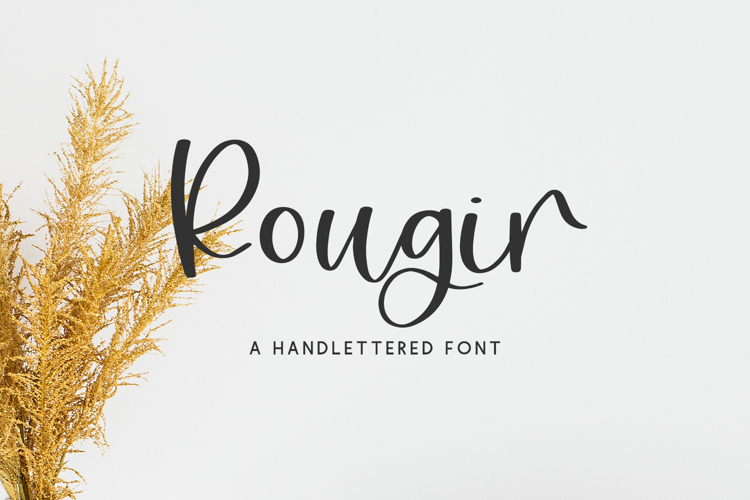
Introducing Rougir Script, a handlettered calligraphy script with the slightest bit of bounce.
Rougir Script is best for:
- logos + branding for feminine or kid-centric brands
- header elements that need a cute handwritten touch
- crafting with Cricut or Silhouette machines, since it has a super smooth edge for cutting vinyl!